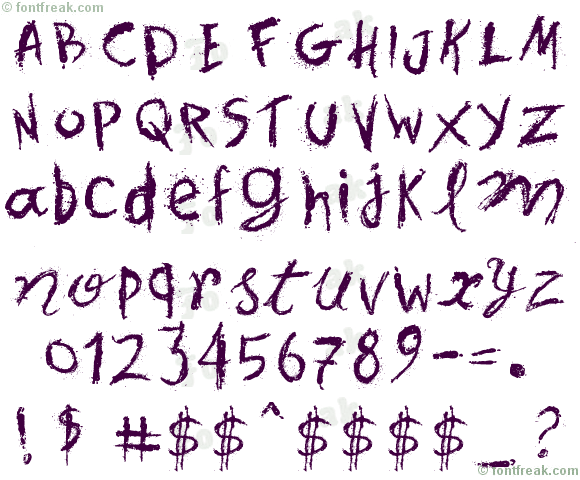
Spots in the Mirror
"Spots in the Mirror" by Galdino Otten Fonts is a unique display font that captures attention with its whimsical and artistic flair. This decorative typeface features a distinctive hand-drawn style that exudes creativity and personality. The strokes are varied in weight, giving it an organic feel, while the playful contrast adds depth, making each letter visually engaging. The spacing is fluid, allowing for an elegant flow that enhances readability despite its artistic nature.
This font is particularly well-suited for a variety of creative projects. It shines in wedding invitations, where its charming character can set a romantic tone. Additionally, it works wonderfully for movie posters, especially in indie films seeking to convey a unique visual identity. Restaurant menus can benefit from the font's artistic appeal, drawing diners in with its distinctive style. It can also be used effectively in promotional materials for art events or craft fairs, where creativity is the central theme.
What sets the "Spots in the Mirror" font apart is its ability to blend a playful aesthetic with practical usability. It invites creativity while remaining versatile enough for various applications. Whether you're designing a personal project or a professional piece, this font can add a memorable touch, making it a fantastic choice for those seeking an artistic edge. For those interested, the "Spots in the Mirror font free download" is readily available, allowing you to explore its creative possibilities.